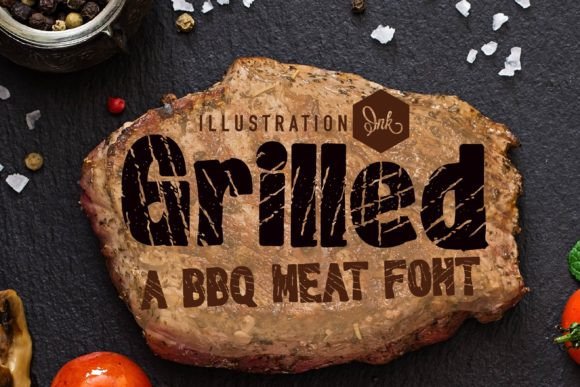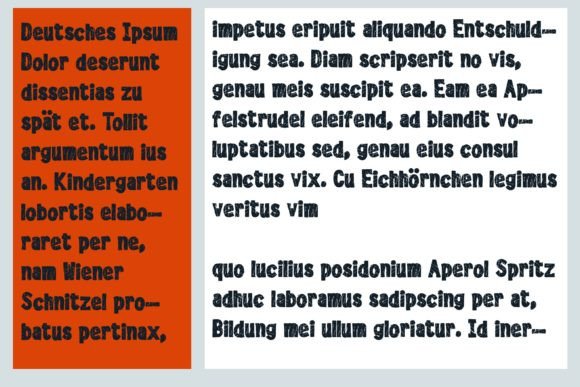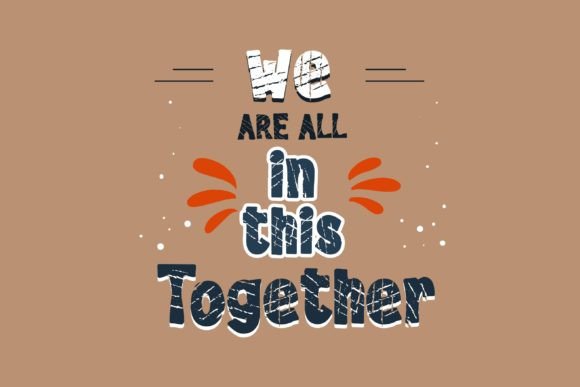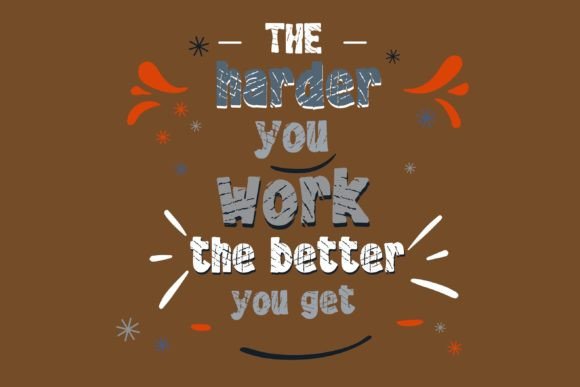
Grilled Font
About the Grilled Font
Explore the possibilities with Grilled Font, a font that offers both beauty and functionality. Grilled font is like writing with a marker but it looks like it’s been cooked on a grill. It’s simple and bold, with lines that look scorched, like barbecue marks.
Grilled Font’s bold, slightly aggressive style makes it ideal for headlines, short impactful statements, and branding applications where a strong, memorable presence is needed. It works exceptionally well for posters, logos, and packaging design for products targeting a younger, more rebellious demographic. Avoid using it for body text or lengthy paragraphs; its unique texture and weight make it difficult to read at smaller sizes.
Its inherent boldness is best complemented by pairing it with clean, neutral sans-serif fonts like Open Sans or Lato for readability in supporting text. For a more playful feel, a rounded geometric sans-serif like Futura would work well. Conversely, a classic serif like Garamond could create an interesting contrast, highlighting Grilled Font’s unique texture.
The overall personality of Grilled Font is bold and slightly edgy, conveying a sense of informality and approachability, yet maintaining a strong visual presence. It’s perfect for brands aiming for a youthful, energetic, and slightly rebellious image.
Grilled Font Usage Examples
Grilled Font Example